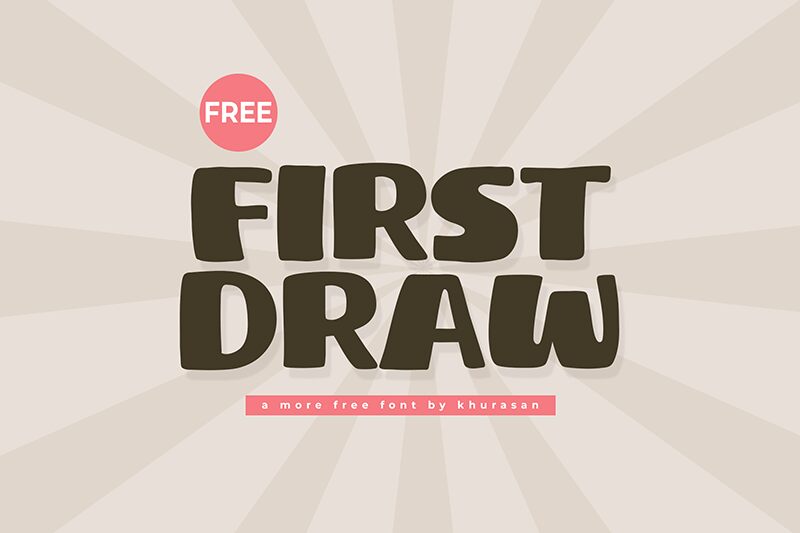
First Draw font by Khurasan is a playful free display font with a cartoon style. It's instantly recognizable through its organic forms and casual aesthetic. The artwork is dominated by thick exaggerated proportions that give each word the artistic feel it deserves. This font has a lot of similarities to kiddie fonts found on toys and other items.
Make your menus, animated graphics, pop-up books, posters, book covers, apparel items and logos stand out with First Draw! This versatile font also suits branding initiatives for businesses tailored towards kids. Write story covers using this typography all while completing the perfect projects in no time.